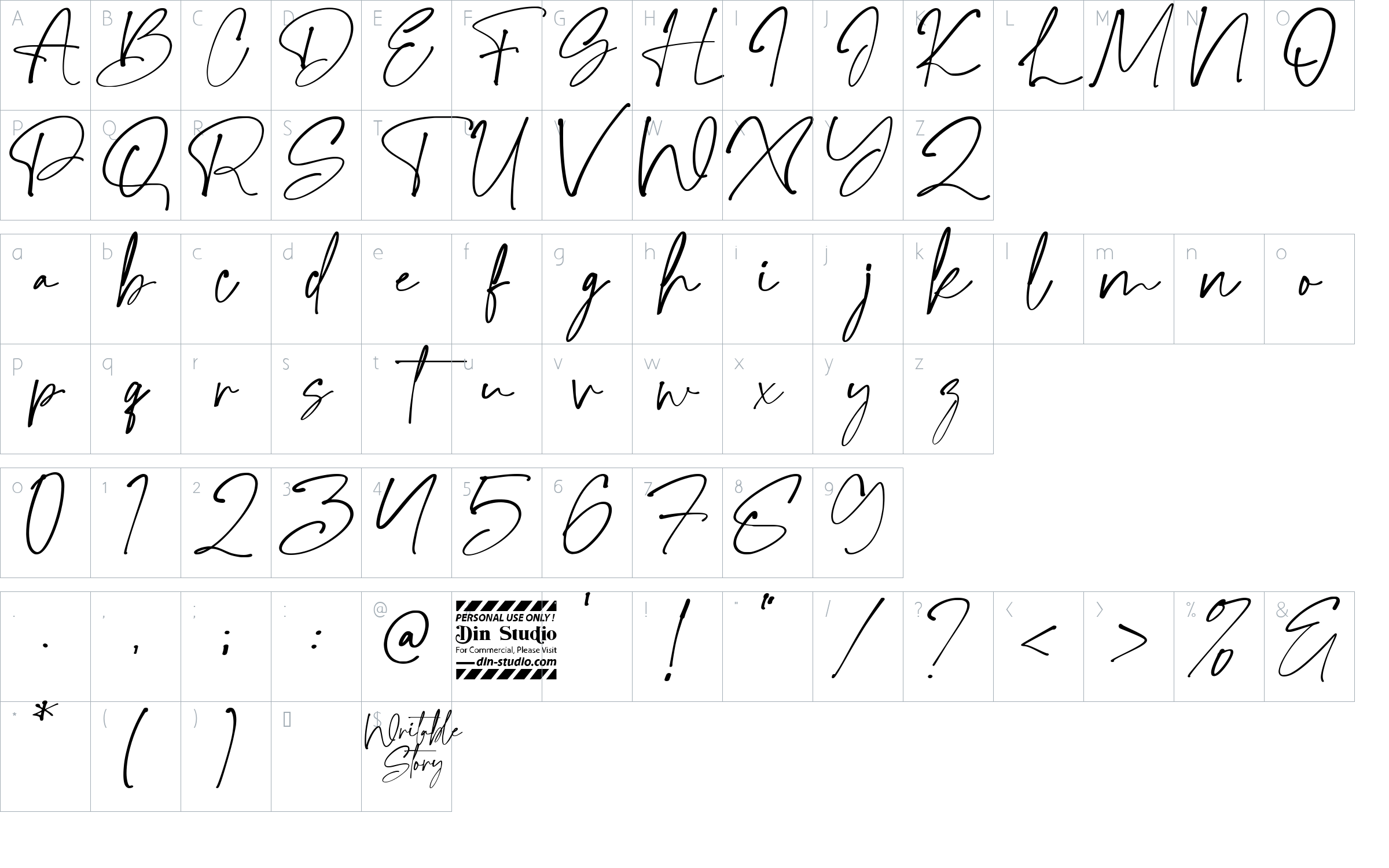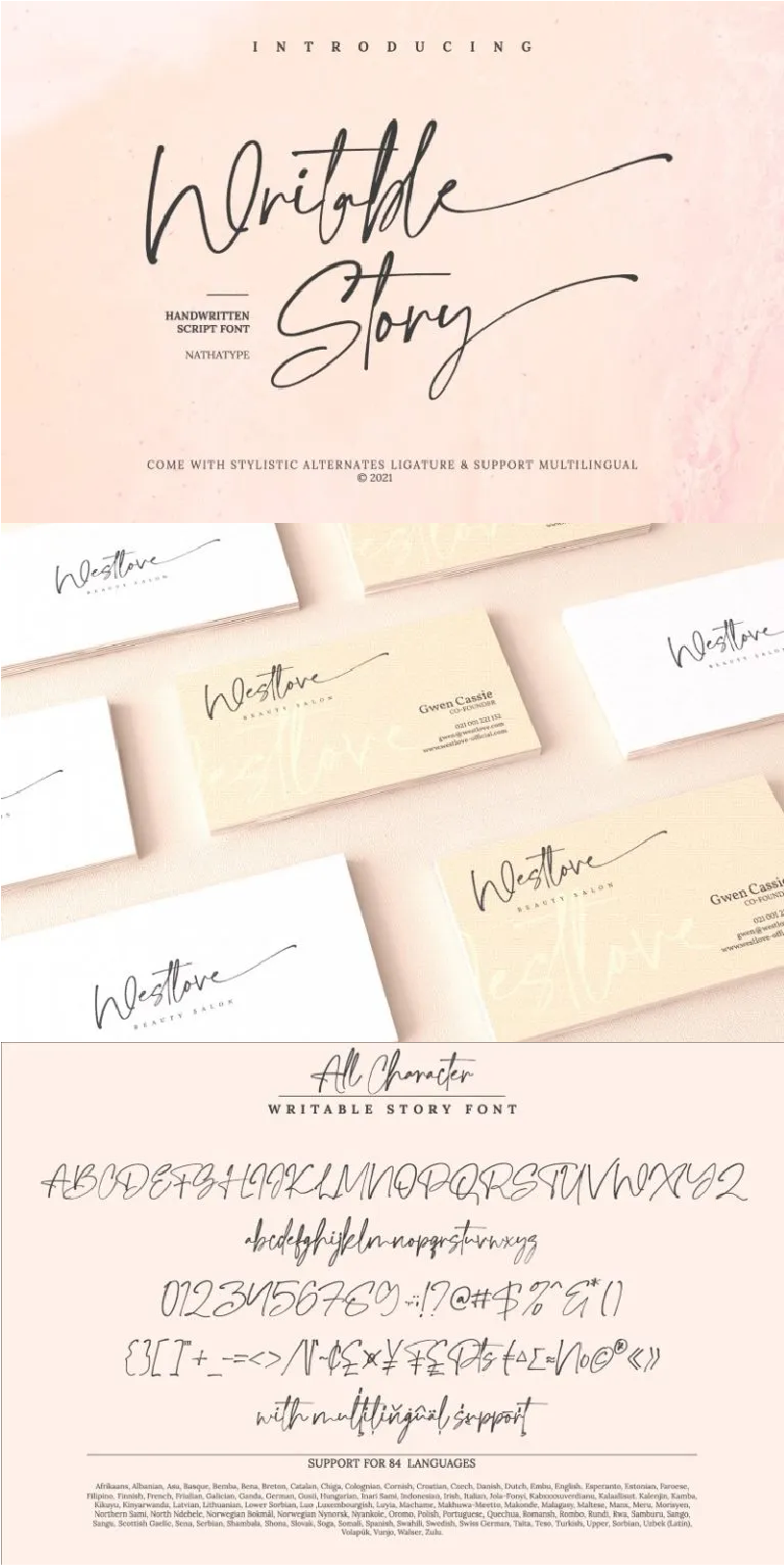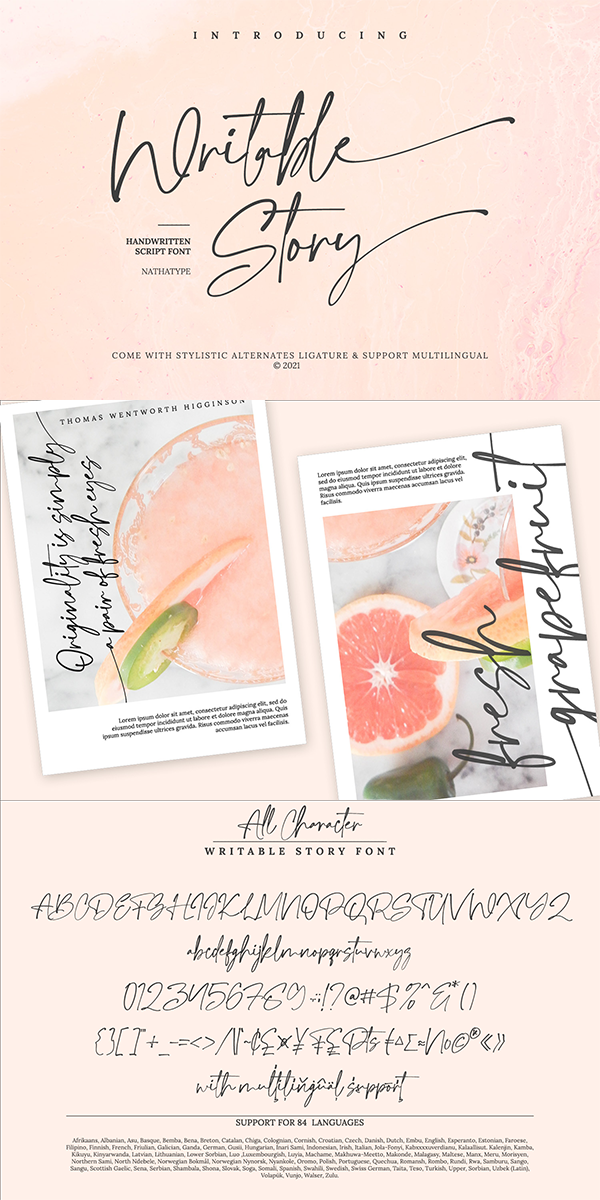
Writable Story Font
About Writable Story
Writable Story-A Handwritten Font
A modern and stylish handcrafted calligraphy font that’ll make your audience swoon and enhance your branding. This font is more than just another handwritten font. Every stroke and curve encapsulates the essence of luxury. and elegance. Ideal to create standout headings, promote your online sales, Instagram quotes, and even printed materials like business cards, t-shirts, or invitations.